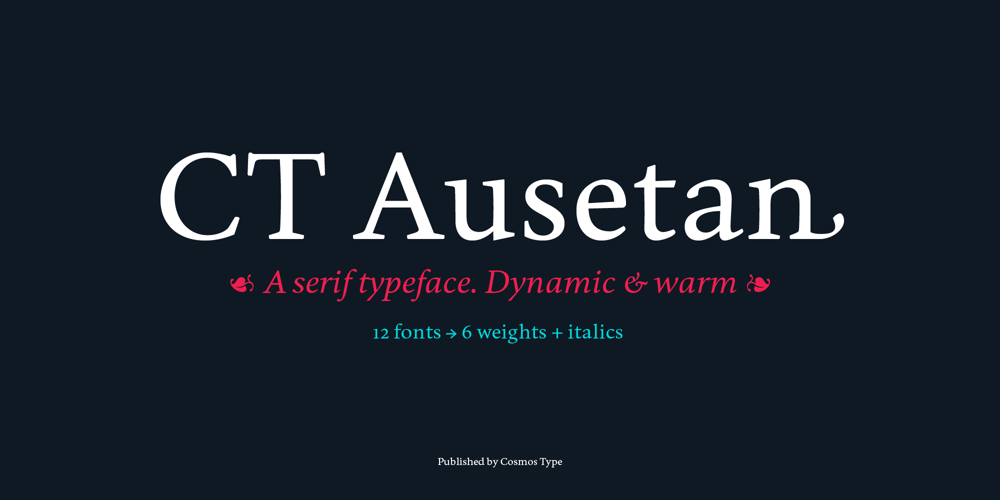
CT Ausetan
CT Ausetan font
CT Ausetan Font Family was designed by Javier Porras and published by Cosmos Type. CT Ausetan contains 12 styles and family package options. CT Ausetan is a typeface designed for perfect reading in continuous text. With humanist proportions and calligraphic details but actual, both in appearance and in function. Its asymmetric serifs and slightly curved stems recall the warmth, dynamism and character of the first humanist typefaces built according to the logic of the flat pen. It has a high x-height and its moderate contrast make reading in small bodies comfortable. The many OpenType features make it a versatile typeface that fits into any publishing project. To cover present-day needs, CT Ausetan consists of six weights and their corresponding italics. Each font includes small caps, ligatures, old-style, lining, proportional and tabular figures, superscript, subscript, numerators, denominators, and fractions as well as various geometric figures and stylistic sets. With an extensive Latin character set, CT Ausetan covers a large number of Latin-based languages. Initially designed for small texts, below 14 pt, its calligraphic details accentuate its personality when used in larger bodies such as headlines.